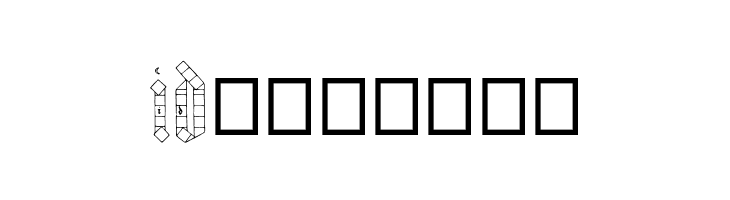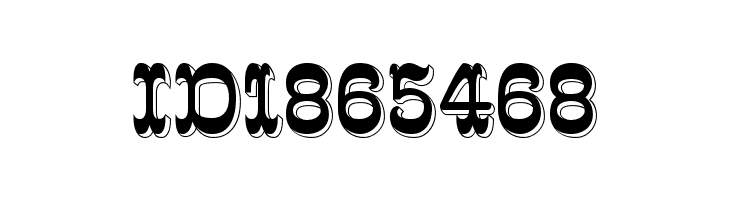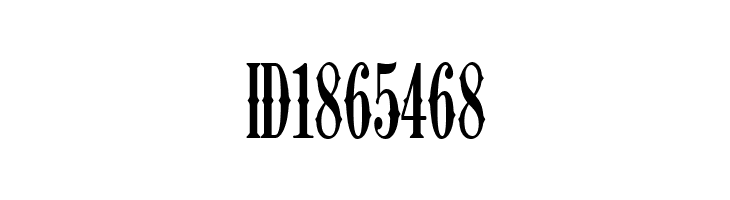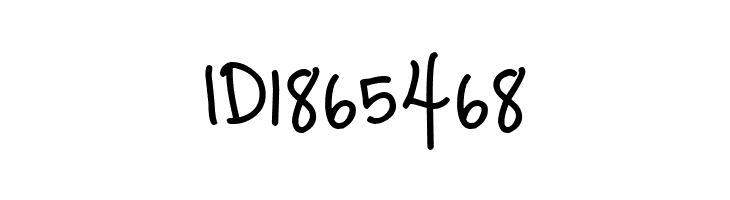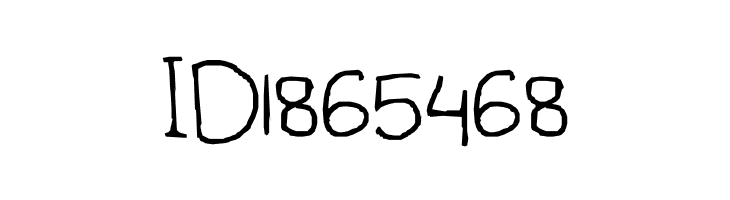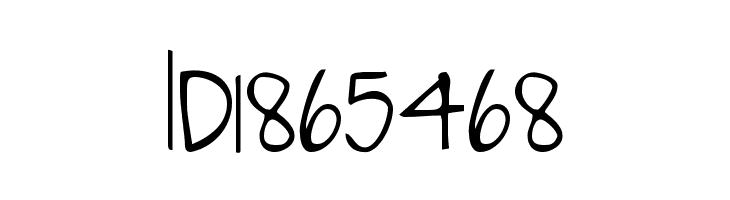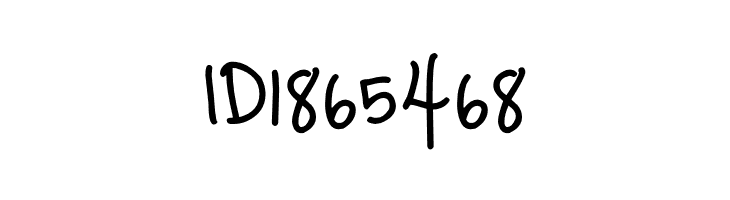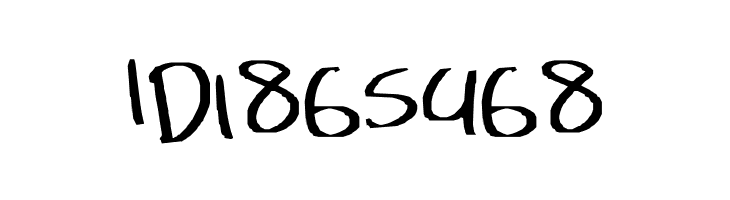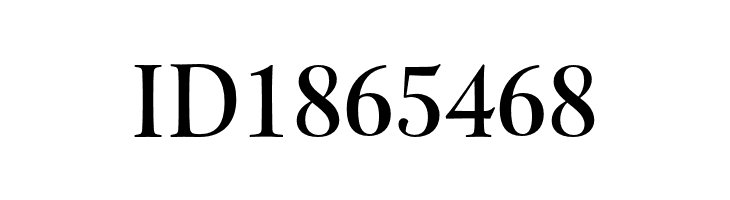
A bold, ornate blackletter font with a medieval aesthetic.
A playful, handwritten font with a casual and informal style.
A playful, casual handwritten font with irregular strokes and a whimsical feel.
A casual, playful handwritten font with a dynamic and lively feel.
Bold, condensed serif font with strong, elegant letterforms.
A bold, condensed font with a vintage style and tight character spacing.
A bold, decorative font with a playful, shadowed style.